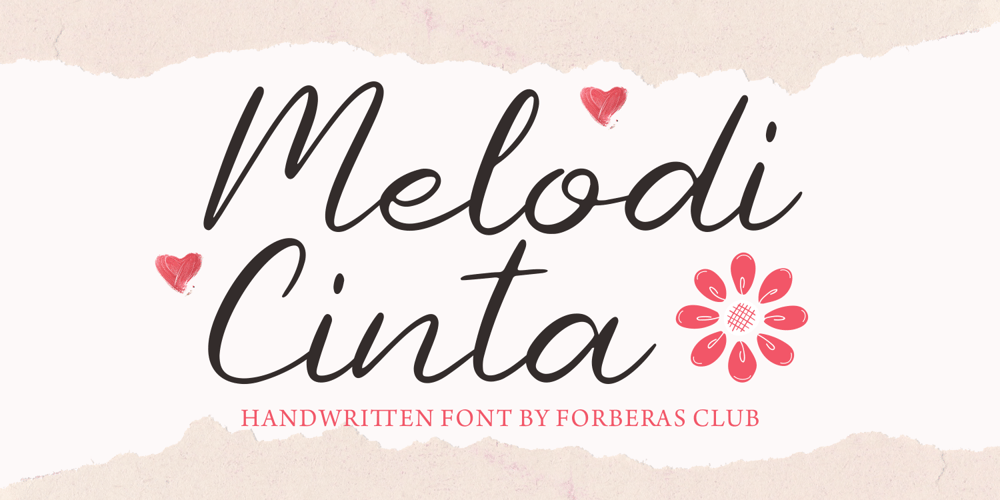
Melody Cinta Font Family was designed by ANGGI HERMAWAN and published by Forberas Club. Melody Cinta contains 1 styles and family package options. Melody Cinta is modern handwritten.Recommended to use this font for wedding party, invitation, memorable moment, love story and many more with special moment.